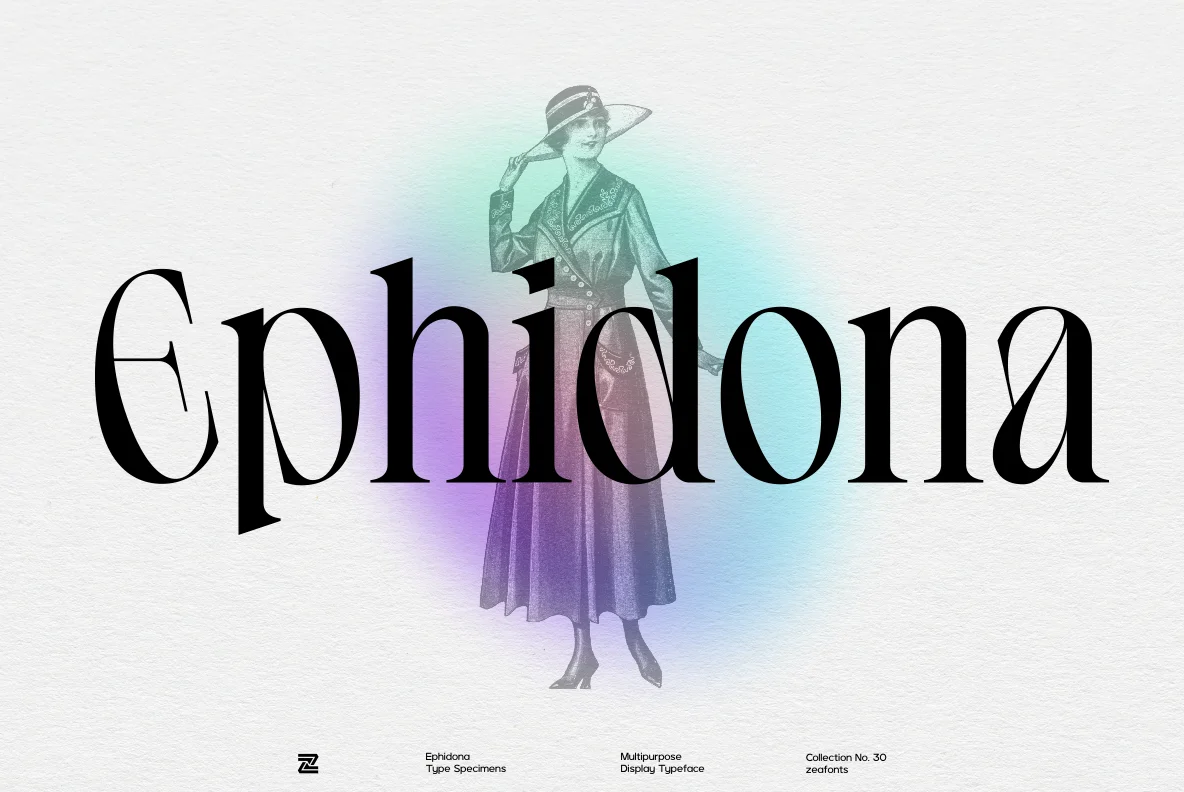
Ephidona Font
Ephidona Font is perfect for a wide range of design projects including creative branding, artistic logos, book covers, poster designs, greeting cards, packaging design, editorial layouts, and captivating social media content. Its distinctive character makes it ideal for projects that require a unique and memorable typographic presence.
What makes Ephidona Font exciting is its remarkable ability to blend artistic expression with functional design. The font features carefully balanced letterforms that create a striking visual impact while maintaining excellent legibility. Its unique personality adds depth and character to any project, making it a standout choice for designers seeking to make a bold statement.
Ephidona Font comes in multiple font families including Regular, Bold, Light, Medium, Italic, and various weight combinations. These comprehensive options allow designers to create dynamic typographic systems and maintain visual consistency throughout their creative work.
When you need a typeface that combines originality with professional polish, Ephidona Font Free Download delivers outstanding results. The font's versatile nature makes it suitable for both headline applications and shorter text blocks, while its distinctive style ensures your designs leave a lasting impression on your audience.